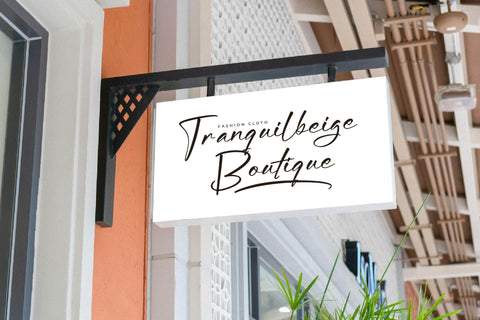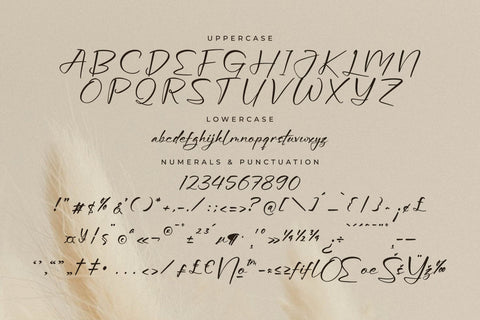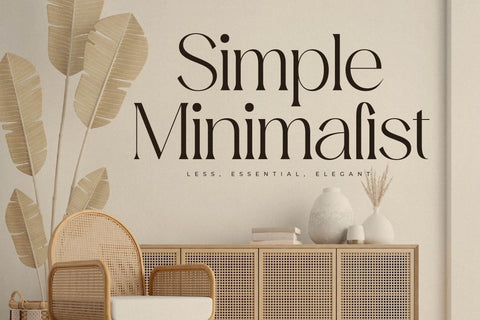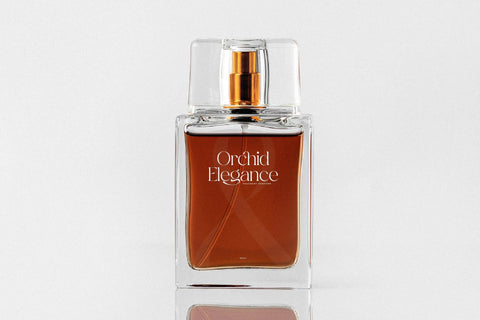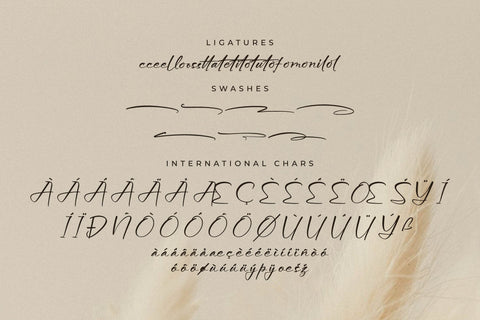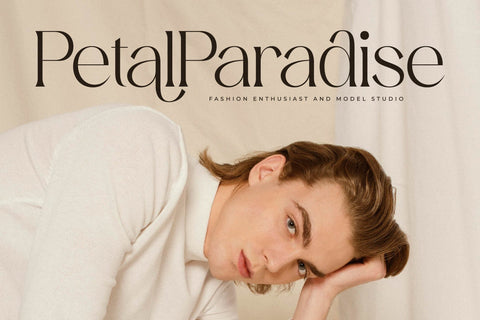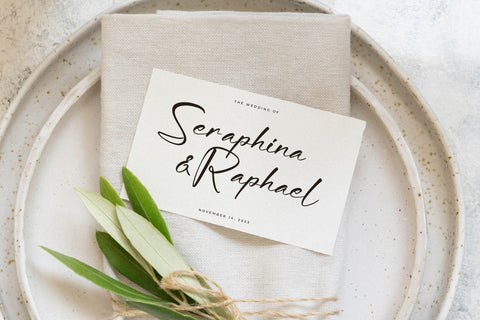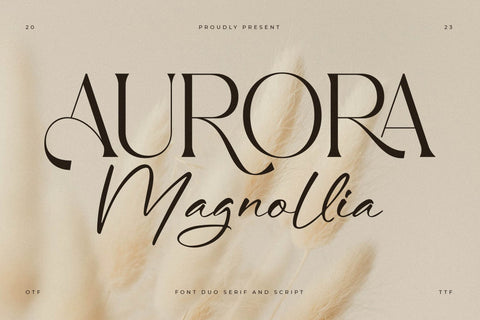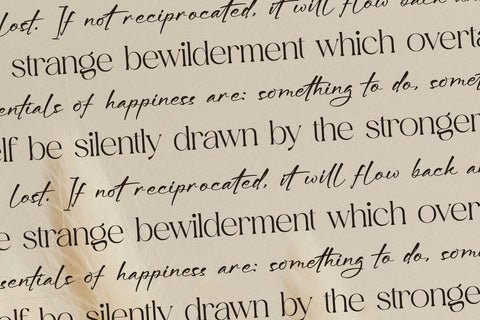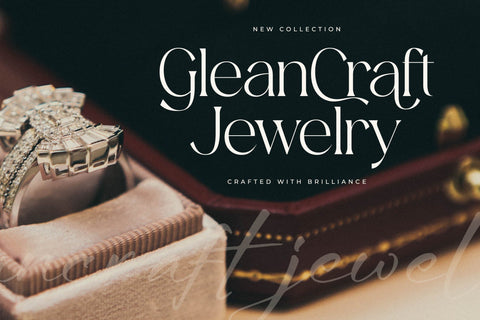
Aurora Magnollia Font Duo
Proudly present Aurora Magnollia Font Duo , created by Storytype,
A serif and script typeface that has own unique style & modern look.